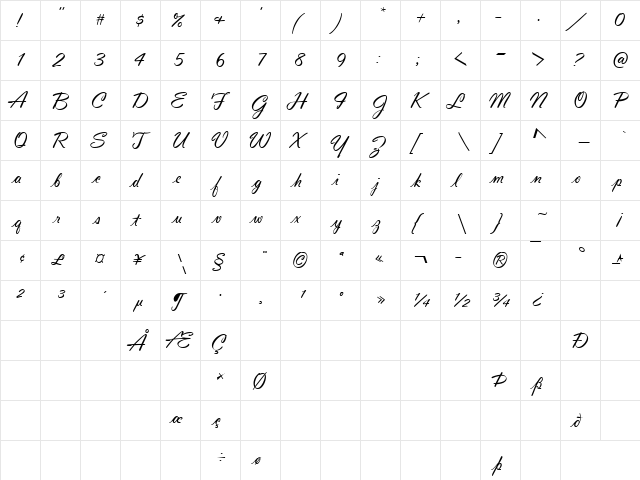
Vladimir Script (Slanted Less) Regular Font Preview
Vladimir Script (Slanted Less) Regular
Vladimir Script (Slanted Less) Regular Font Details
Design Context for Vladimir Script (Slanted Less) Typeface
Vladimir Script (Slanted Less) flows with the natural rhythm of handwritten lettering, making it ideal for designs that call for warmth and personal expression.
Font Pairing: Combine Vladimir Script (Slanted Less) with a simple geometric sans for maximum contrast — the tension between flowing curves and clean structure is a classic typographic pairing.
Pro Tip: Pair Vladimir Script (Slanted Less) with a clean sans-serif for supporting text. The contrast between fluid script and geometric structure creates an elegant typographic hierarchy.